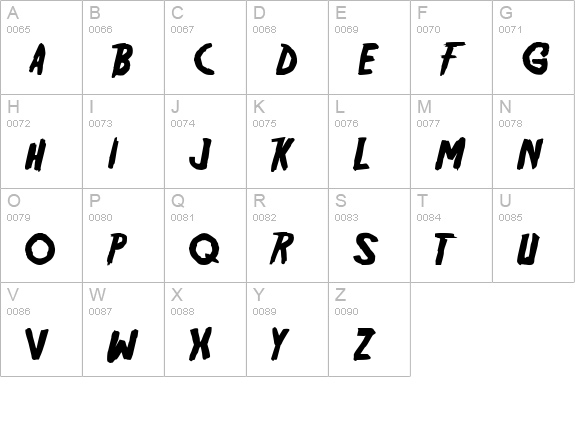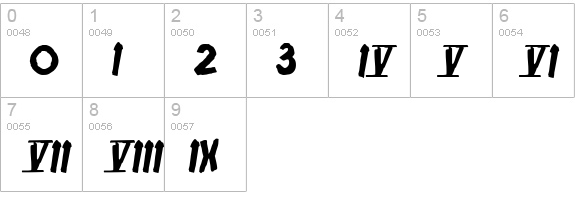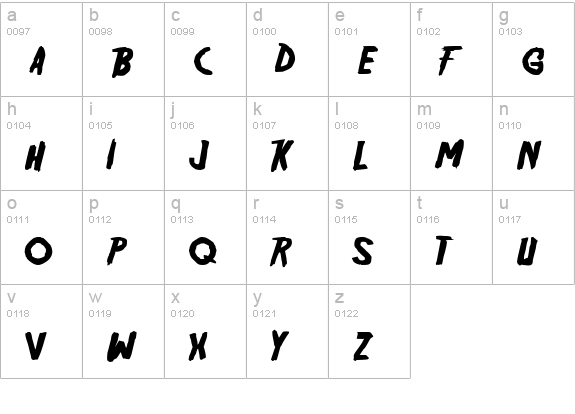
Friday13 Font Details
Introducing Friday13 font, a striking and captivating typeface that embodies the essence of mystery and intrigue. With its unique blend of modern and gothic elements, this font is perfect for adding an edge to your designs, whether you're crafting a hauntingly beautiful logo, designing a chilling book cover, or creating an eerie poster. What makes Friday13 font even more enticing is that it is available for free. That's right, you can easily download this stunning font at FontsMarket.com without any cost. With its intricate and meticulously crafted characters, Friday13 font will instantly transport your audience into a world filled with suspense and excitement. The bold strokes and sharp angles give this font a commanding presence, making it ideal for projects that require a touch of darkness and mystique. Whether you're a professional designer looking to add a touch of uniqueness to your work or a hobbyist searching for the perfect font to enhance your personal projects, Friday13 font is the answer. Its versatility allows it to be used in a variety of contexts, from horror-themed websites to movie titles, bringing a sense of sophistication and intrigue to every design. So why wait? Download Friday13 font for free today at FontsMarket.com and unlock a world of possibilities for your creative endeavors. Let your imagination run wild as you explore the endless opportunities this font has to offer. Embrace the allure of Friday13 font and watch as your designs come to life with a captivating and enigmatic edge.